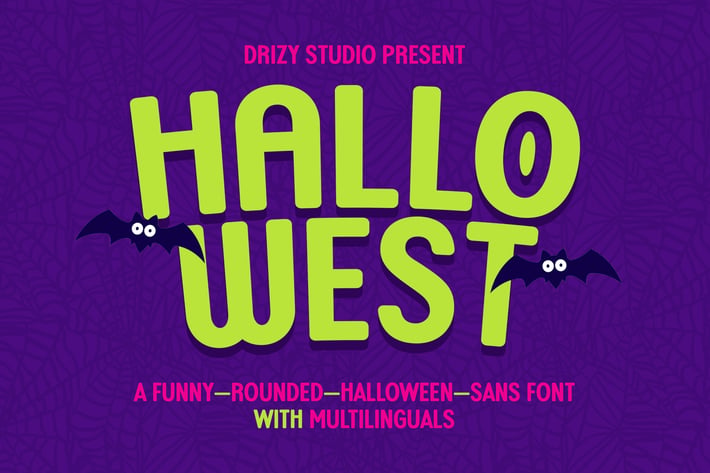
Hallowest – Funny Halloween Font
Hallowest is a funny halloween font from Drizy studio. Offering all the basic styles you will need for a spooky and scary yet funny theme, like Halloween project for kids.
Hallowest Features:
Multilinguals & Alternates